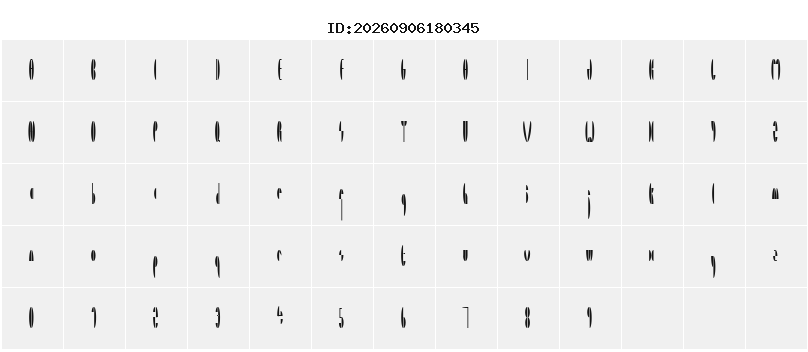
TM Paramount.ttf is a modern, elegant sans-serif font designed for ultimate readability and visual harmony. Perfect for branding, headlines, web design, and print materials.